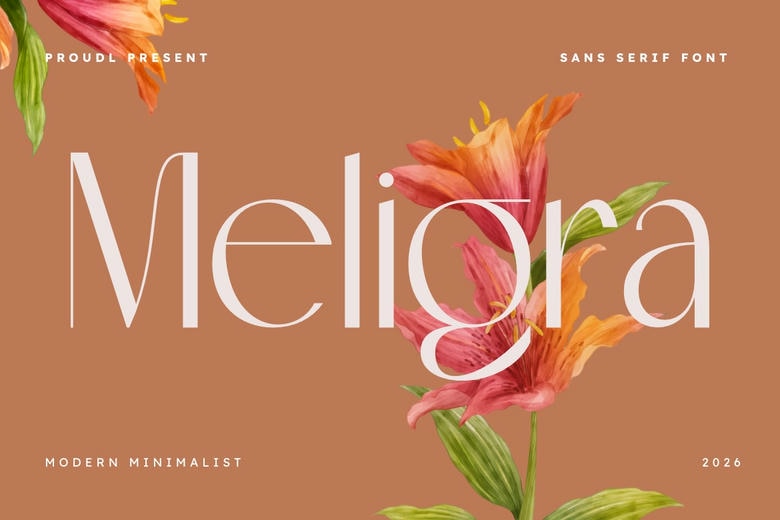
Meligra Font
Meligra is a modern sans serif typeface designed with precision and elegance in mind. Its clean, minimalist lines and balanced details give your visual identity a refined, high-end look.
This font works well for luxury brands, editorial layouts, or polished stationery and promotional materials. Its geometric curves and sleek shapes help your message stand out in both digital and print formats.
Meligra Sans Serif Font